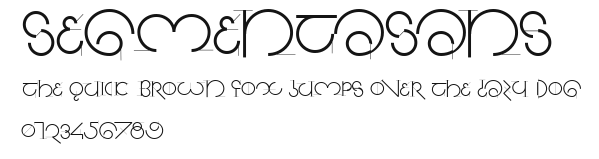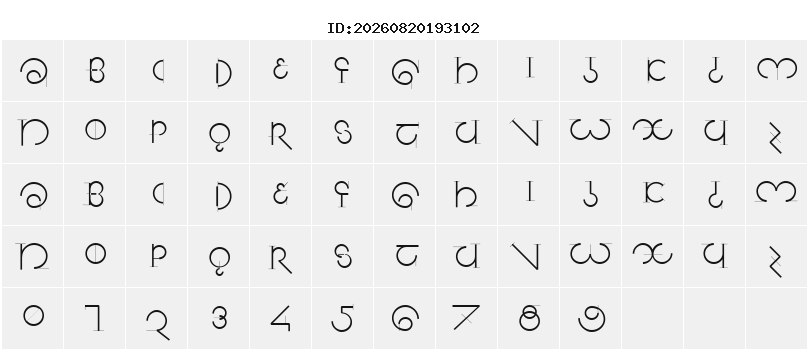
SegmentaSans Preview
• Font Name: SegmentaSans
• Full Font Name: SegmentaSans
About SegmentaSans.ttf
SegmentaSans.ttf is a modern, elegant sans-serif font designed for ultimate readability and visual harmony. Perfect for branding, headlines, web design, and print materials.